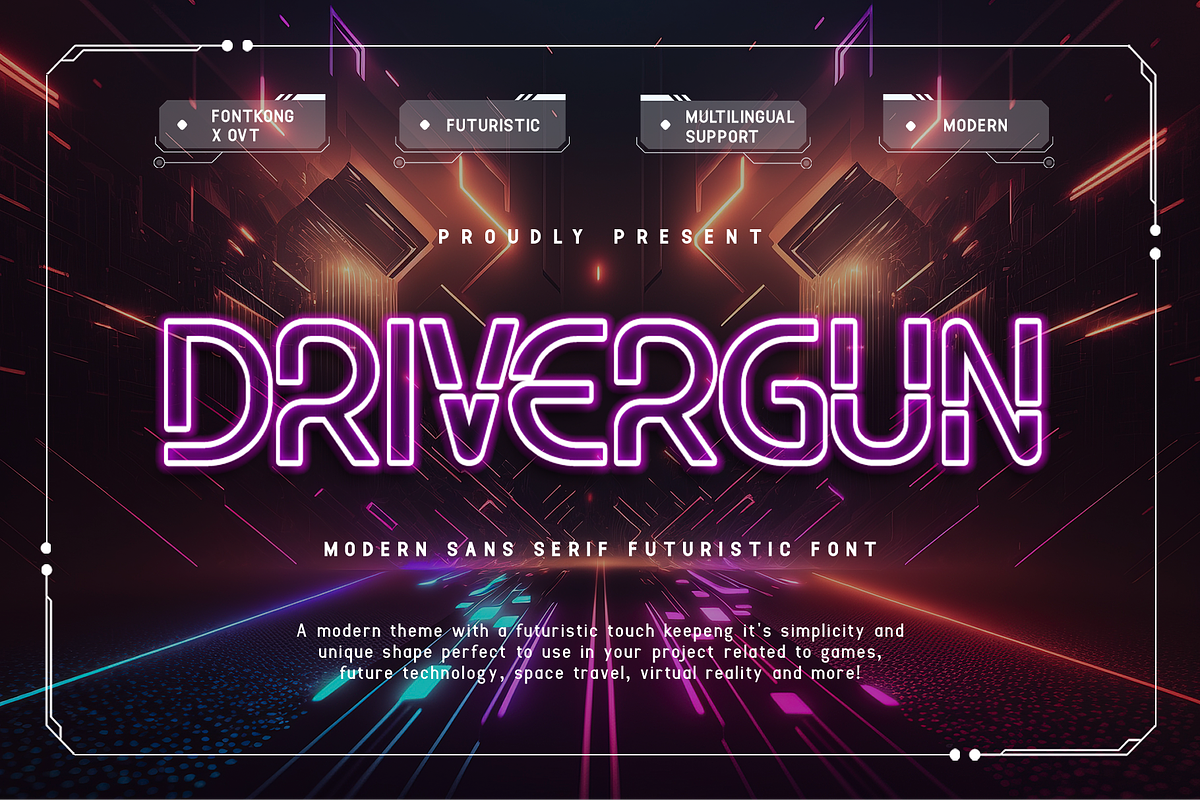
Drivergun - Modern Sans Serif Futuri Font Free Download is a sleek, high-impact typeface crafted for bold, futuristic design. With clean edges, sharp geometry, and a fast-forward energy, this font is perfect for tech branding, esports logos, automotive ads, and UI/UX interfaces that demand precision and power.
Drivergun - Modern Sans Serif Futuri Font Free Download is built for speed and sophistication. Every character is engineered with modern minimalism in mind—making it ideal for headlines, product names, gaming visuals, and sci-fi themes. It reads crisp and confident on both print and screen.
Whether you're designing a tech startup identity, a cyberpunk project, or a dynamic social media campaign, Drivergun delivers clarity with a cool, cutting-edge edge. It pairs beautifully with gradients, dark modes, and neon accents.
Shift your typography into overdrive with Drivergun—where every letter feels like it's built to move forward.